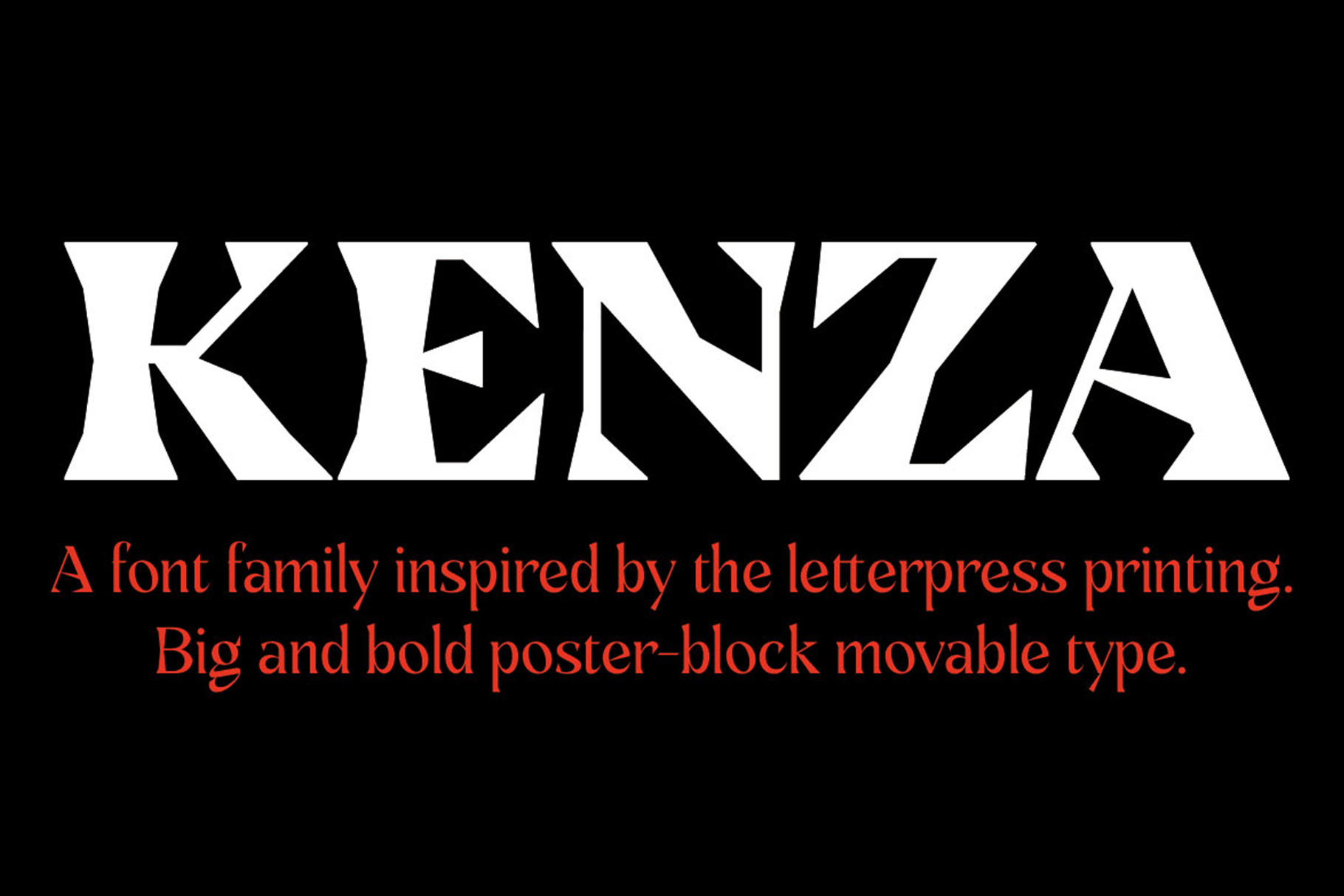
Kenza Font Family
Kenza is a serif geometric font, which is inspired by letterpress printing. Hand crafted wood letters used in the mid-20th century. It is characterized by being large, bold poster-block movable type. Weights: Thin, light, regular, medium, bold, black.